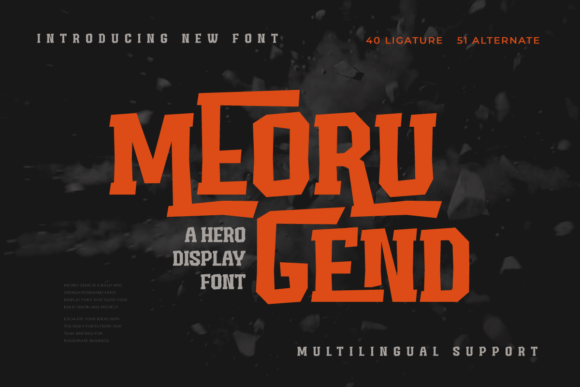
Introducing Meoru Gend Font: Unleash Superhero Strength in Your Game Projects
In the world of game design, fonts play a crucial role in creating an immersive experience for players. A well-crafted font can evoke emotions, convey themes, and set the tone for the entire game. If you’re looking for a font that embodies superhero strength, courage, and modernity, look no further than Meoru Gend Font. In this article, we’ll explore the features and benefits of Meoru Gend, and why it’s the perfect solution for creating action-packed and epic gaming experiences.
The Power of Meoru Gend Font
Meoru Gend is a display font that exudes confidence and energy. Its strong, bold, and futuristic style makes it an ideal choice for game projects that require a dynamic and attention-grabbing aesthetic. Each letter is carefully crafted to bring life to your display with electrifying energy, making it perfect for creating a lasting impression on your players.
Key Features of Meoru Gend Font
- Strong and Bold Style: Meoru Gend’s robust design makes it perfect for creating attention-grabbing headlines, titles, and captions.
- Modern and Futuristic Elements: The font seamlessly blends modern elements to create a unique and futuristic look that’s sure to captivate your audience.
- Ligatures and Alternates: Meoru Gend offers creative features such as ligatures and alternates, allowing you to create unique and interesting variations of your style.
- Multilingual Support: With support for multiple languages, Meoru Gend can be used to reach a global audience and expand your game’s reach.
Benefits of Using Meoru Gend Font
So, why choose Meoru Gend Font for your game projects? Here are just a few benefits of using this powerful font:
- Impressive Look: Meoru Gend’s strong and bold style is sure to grab attention and create a lasting impression on your players.
- Futuristic Style: The font’s modern and futuristic elements will transport your players to a world of excitement and adventure.
- Creative Features: With ligatures and alternates, you can create unique and interesting variations of your style, adding depth and complexity to your game.
- Multilingual Support: Reach a global audience with Meoru Gend’s multilingual support, expanding your game’s reach and potential.
Why Meoru Gend Font is Perfect for Game Projects
Meoru Gend Font is specifically designed for game projects that require a strong, bold, and modern aesthetic. Here are just a few reasons why it’s the perfect choice:
- Action-Packed and Epic Experiences: Meoru Gend’s dynamic style is perfect for creating action-packed and epic gaming experiences that will leave players on the edge of their seats.
- Superhero Strength and Courage: The font’s strong and bold style embodies superhero strength and courage, making it perfect for games that require a bold and fearless aesthetic.
- Modernity and Futurism: Meoru Gend’s modern and futuristic elements make it perfect for games that require a cutting-edge and forward-thinking aesthetic.
Tips for Using Meoru Gend Font
Here are a few tips for getting the most out of Meoru Gend Font:
- Use it for Headlines and Titles: Meoru Gend’s strong and bold style makes it perfect for creating attention-grabbing headlines and titles.
- Experiment with Ligatures and Alternates: Take advantage of Meoru Gend’s creative features to create unique and interesting variations of your style.
- Pair it with Other Fonts: Meoru Gend can be paired with other fonts to create a unique and visually appealing aesthetic.
In conclusion, Meoru Gend Font is a powerful and dynamic font that’s perfect for game projects that require a strong, bold, and modern aesthetic. With its creative features, multilingual support, and PUA encoding, Meoru Gend is the perfect solution for creating action-packed and epic gaming experiences. Whether you’re a game designer, developer, or artist, Meoru Gend Font is sure to bring your game to life and leave a lasting impression on your players.